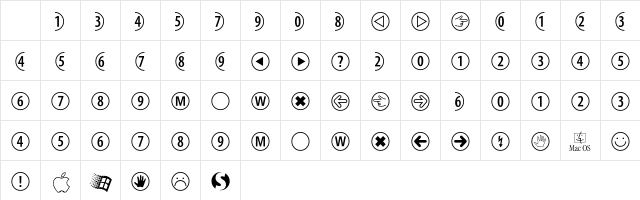
Complete Combnumb 1 glyph index. Displaying only characters natively supported by Combnumb 1 font.
Combnumb is a composed and adaptable typeface that performs quietly and consistently across a wide range of design contexts.